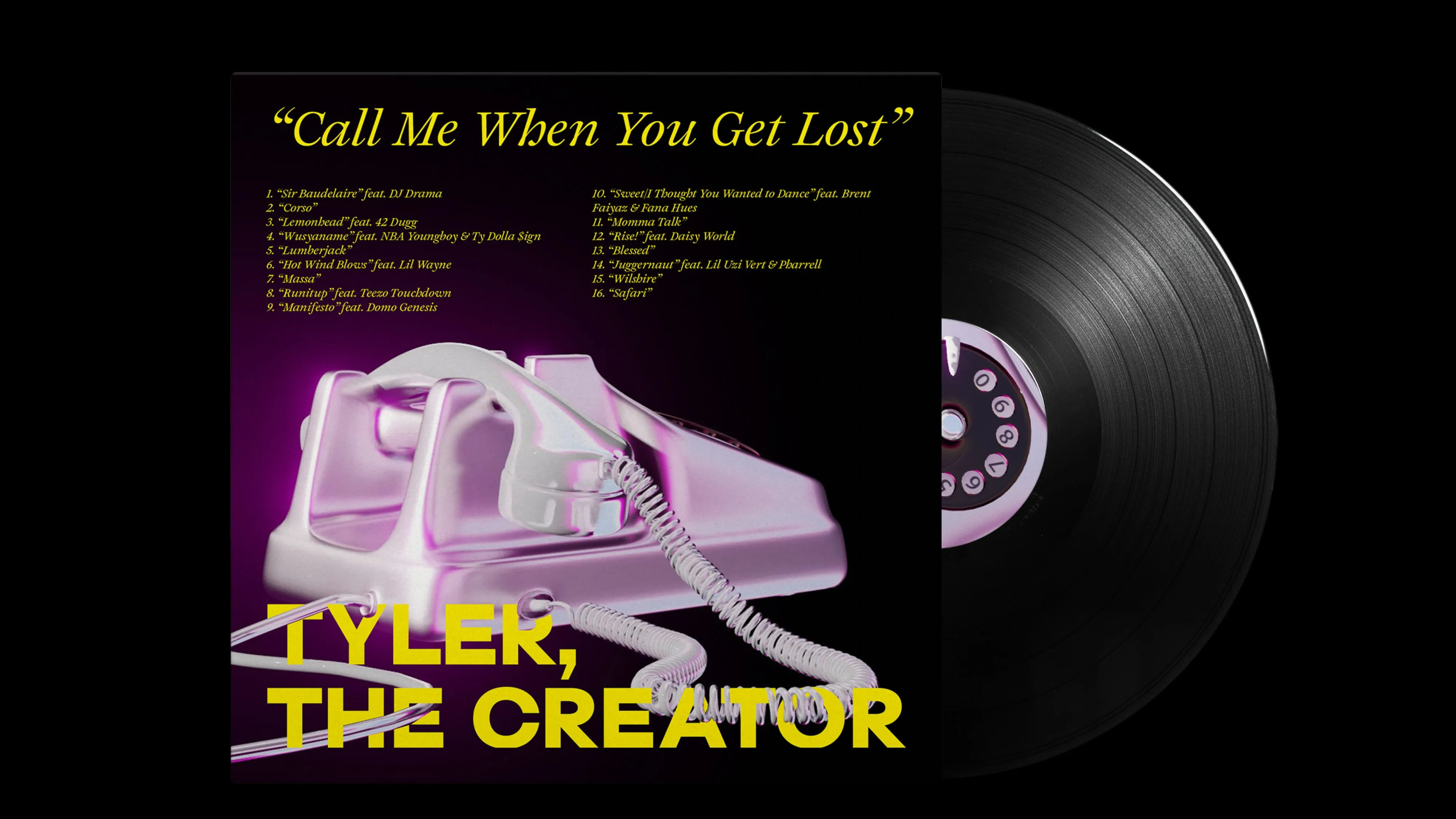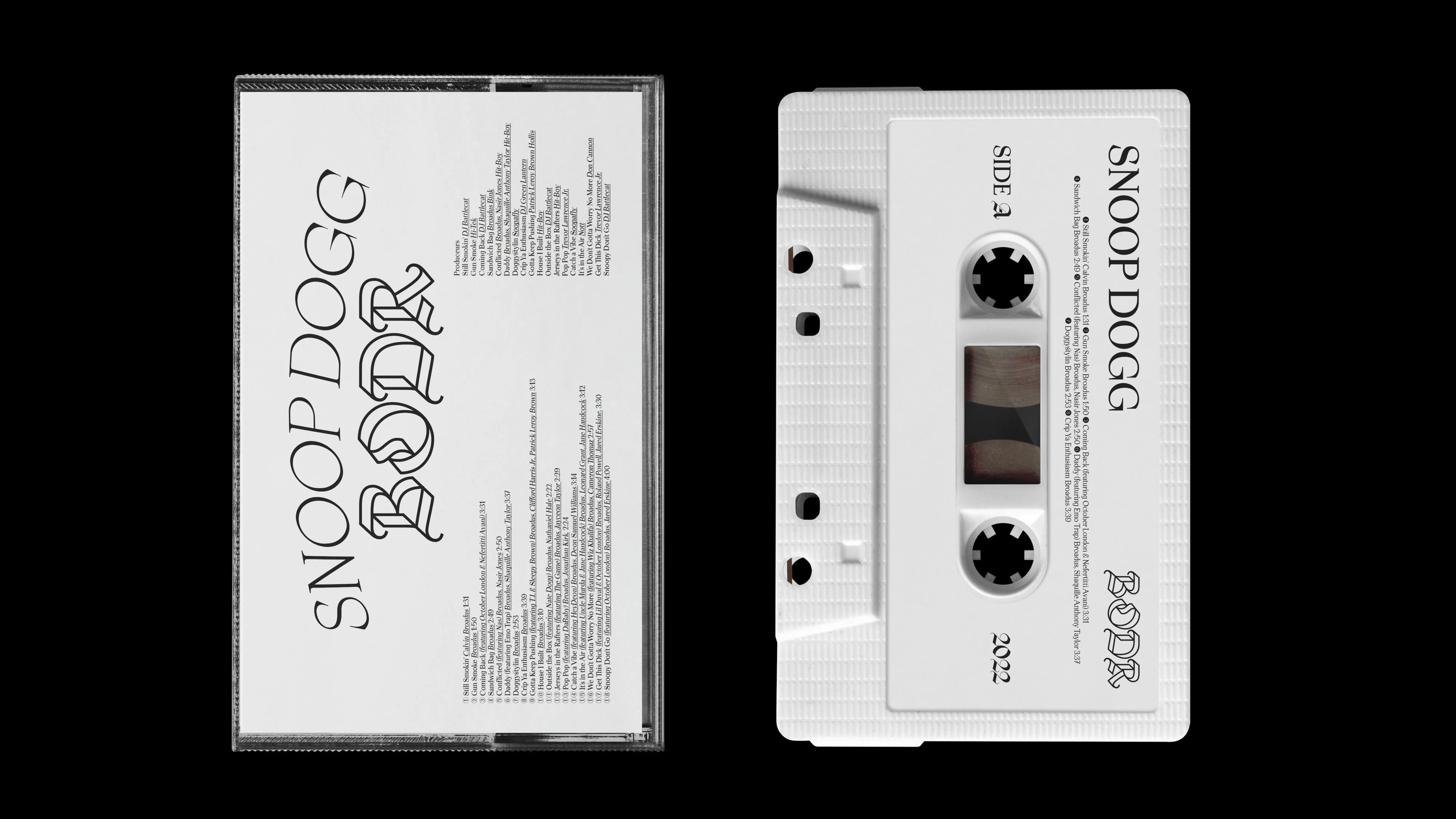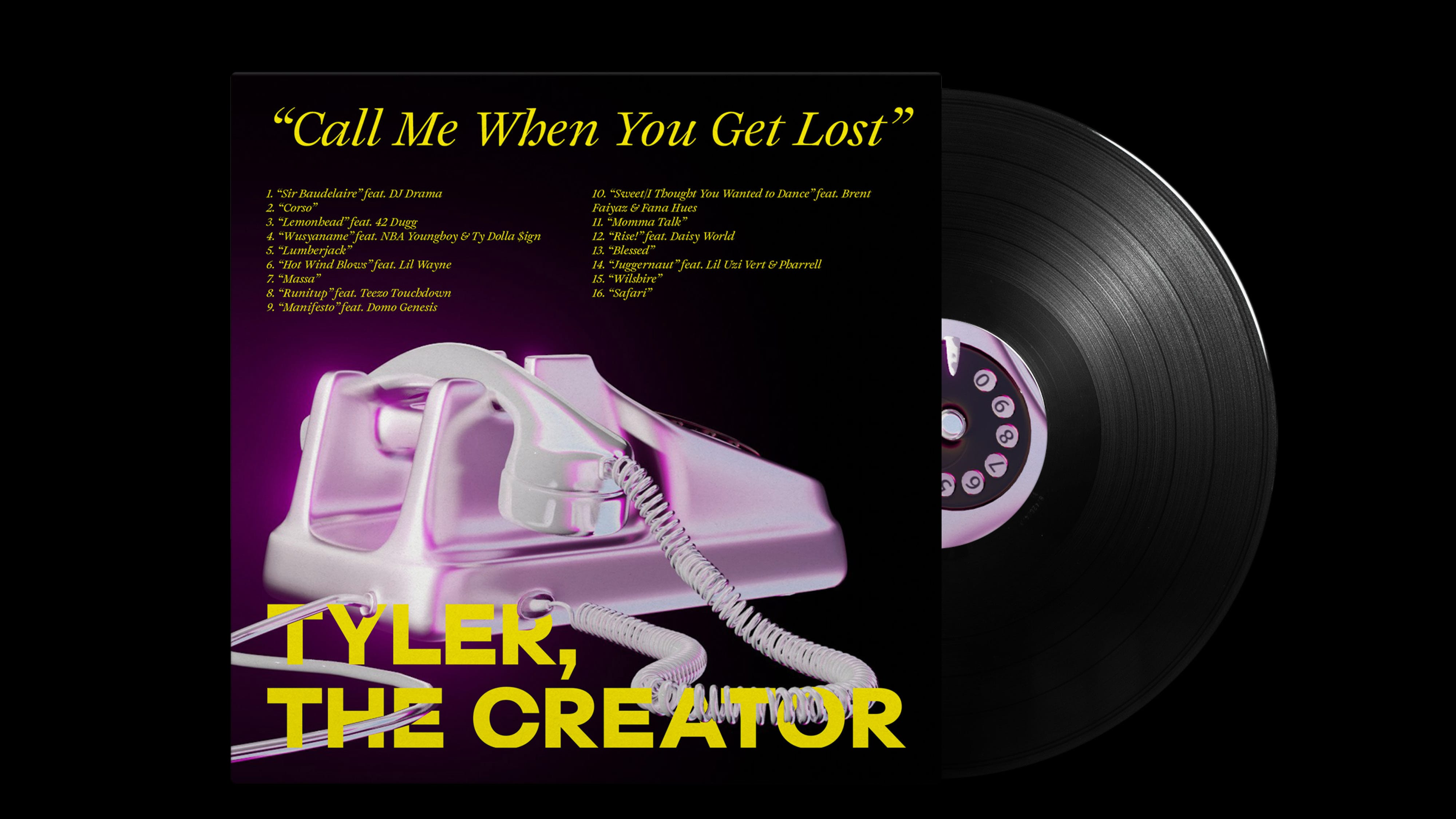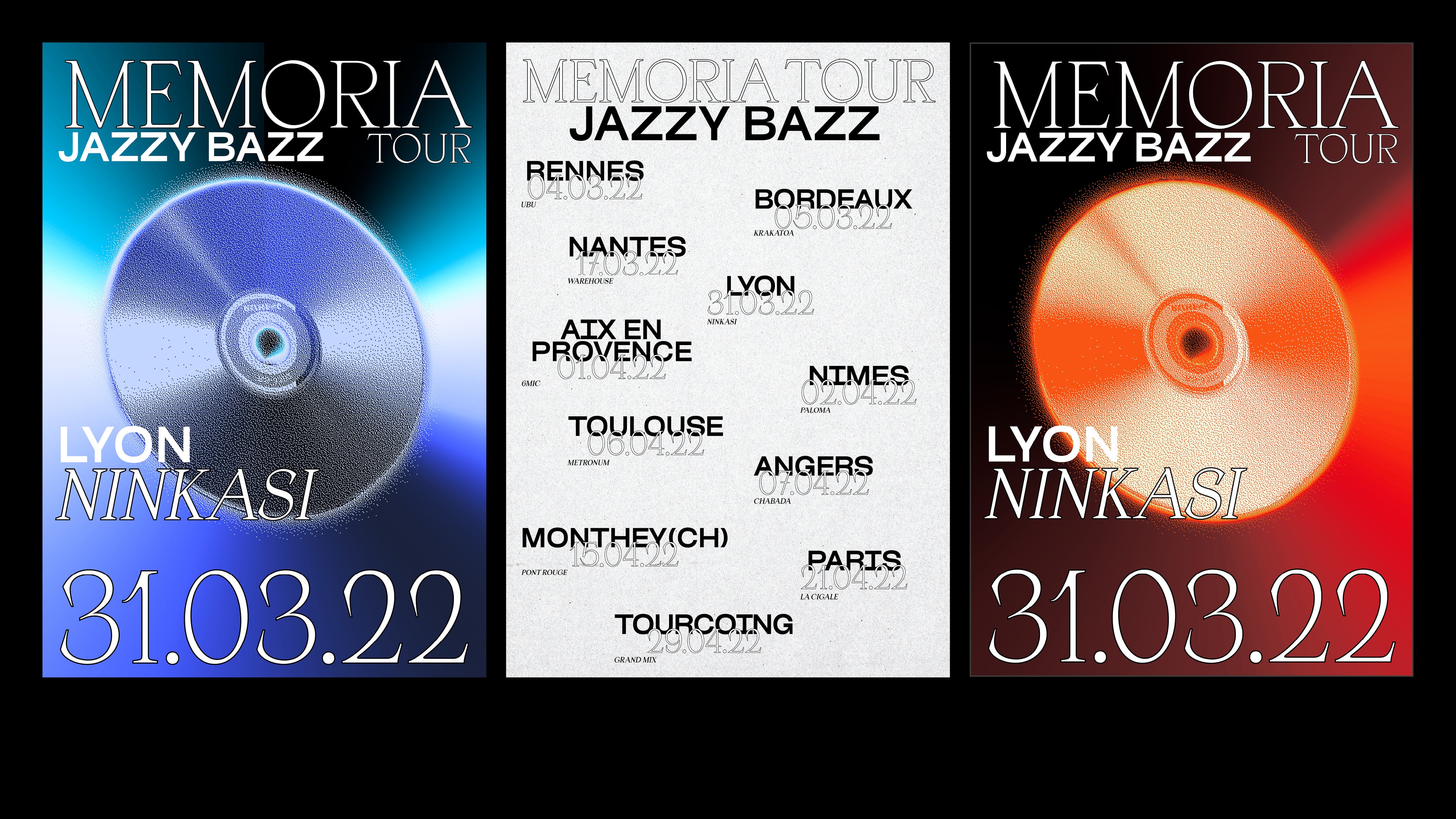
Font Pairing: Music Industry
Font pairing: fonts in the Music industry
Introduction
The Music Industry in an amazing field to showcase super font oriented design work. As expressive at it can be, a mix of well choosen (and well paired) fonts put together can be eye catching while still conveying a key message.
Back during my studies, I had a graphic design teacher who told us this amazing thing: "everytime you design a poster for a band or a music event, make it so people will want to have them on their own wall back home". That's not a small feat to design such a thing and yet again fonts have a great part in achieving that goal.
We designed some posters and other music related items for you to see some examples of how our fonts can be paired together when working in the Music Industry. Each of these were carefully designed by Anouck Elbaz with the goal of making you wish to have them back home on your walls!
Apoc & Osmose
1. Fonts being used : Apoc Revelations Hairline, Apoc Ultra Bold Italic, Apoc Light Italic, Osmose Bold
Joly & Surt
2. Fonts being used: Joly Headline Regular Italic, Surt Expanded Black
Emeritus & Apoc
3. Fonts being used: Apoc Normal Hairline Italic, Apoc Normal Regular, Apoc Normal Bold, Apoc Normal Ultra Bold, Emeritus
ZOO & Oroban
4. Fonts being used: Zoo Extended, Oroban Masuria Medium Italic, Oroban Masuria Medium
ZOO & Mack
5. Fonts being used: Zoo Extended, Mack Black
Arges, Rules & Emeritus
6. Fonts being used: Arges Normal Extra Heavy, Arges Normal Medium Oblique, Emeritus, Rules Medium